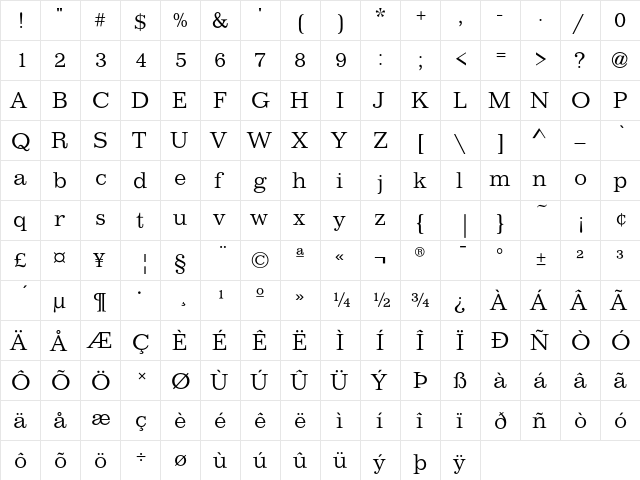
ImpressumEF Light
Design Context for ImpressumEF Typeface
ImpressumEF is a composed and adaptable typeface that performs quietly and consistently across a wide range of design contexts. Its slender proportions lend an understated elegance to any composition.